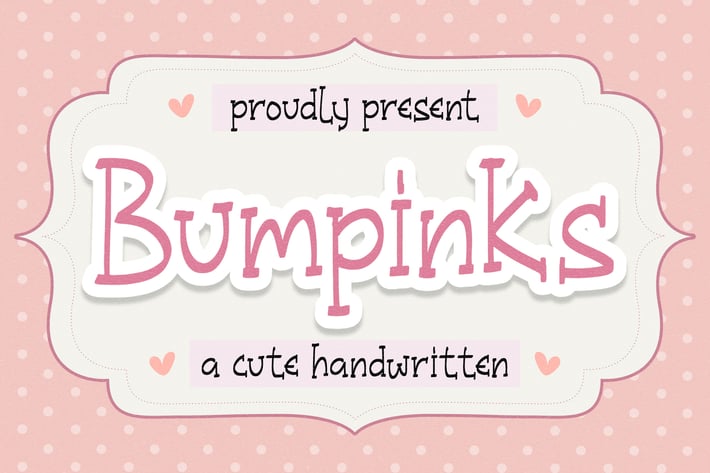
Bumpinks Cute Handwritten Font
Bumpinks is a sugar-sweet, cute handwritten display with bouncy baselines, rounded strokes, and a bubbly, friendly tone. Soft curves and generous spacing make it ultra-readable at small sizes while staying playful for big, happy headlines. Perfect when you want instant “aww” for kids’ projects, party pieces, and anything kawaii.
+ Rounded, bouncy letterforms for a playful vibe
+ Clean spacing & kerning for crisp print/cut results
+ Basic ligatures & alternates for natural handwriting flow
+ Baby shower invites & birth announcements
+ Kids’ birthday signage & party favors
+ Nursery prints & classroom posters
+ Stickers, labels & planner pages (Cricut/Silhouette friendly)
+ Candy, toy & bakery packaging
+ Social media quotes & story covers
+ Greeting cards, scrapbooks & photo overlays
Sprinkle your designs with sweet, bubbly charm.